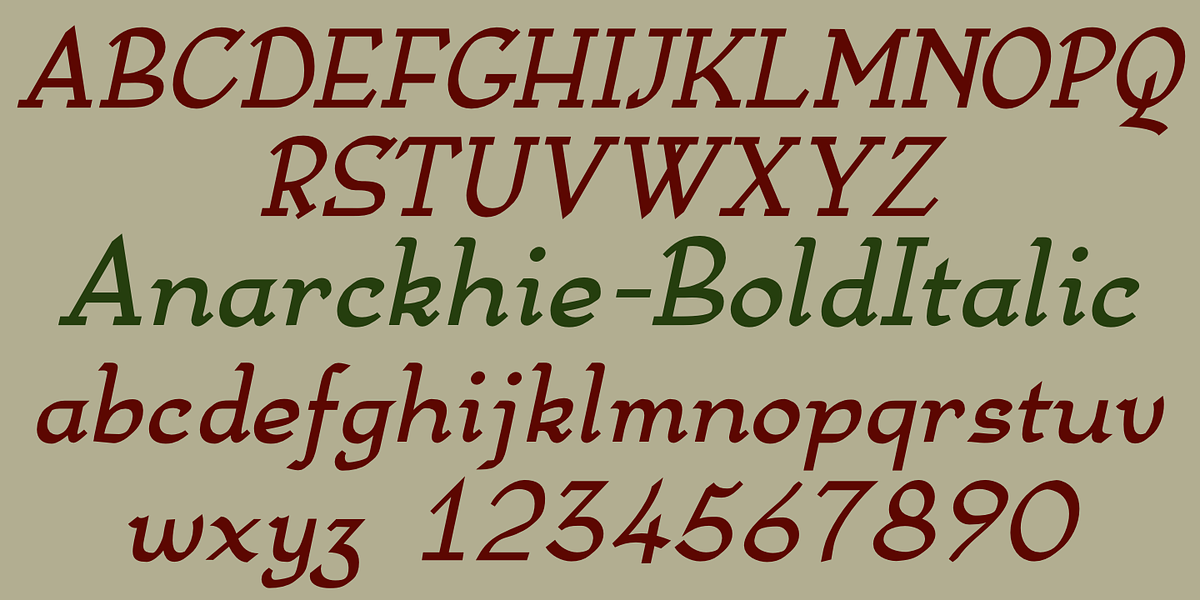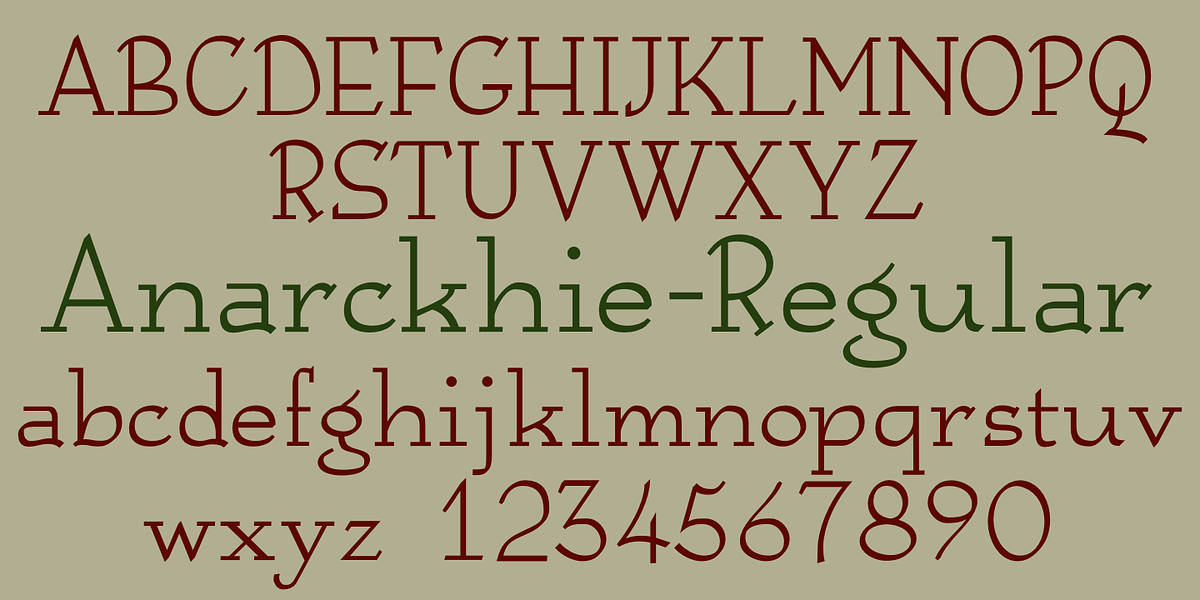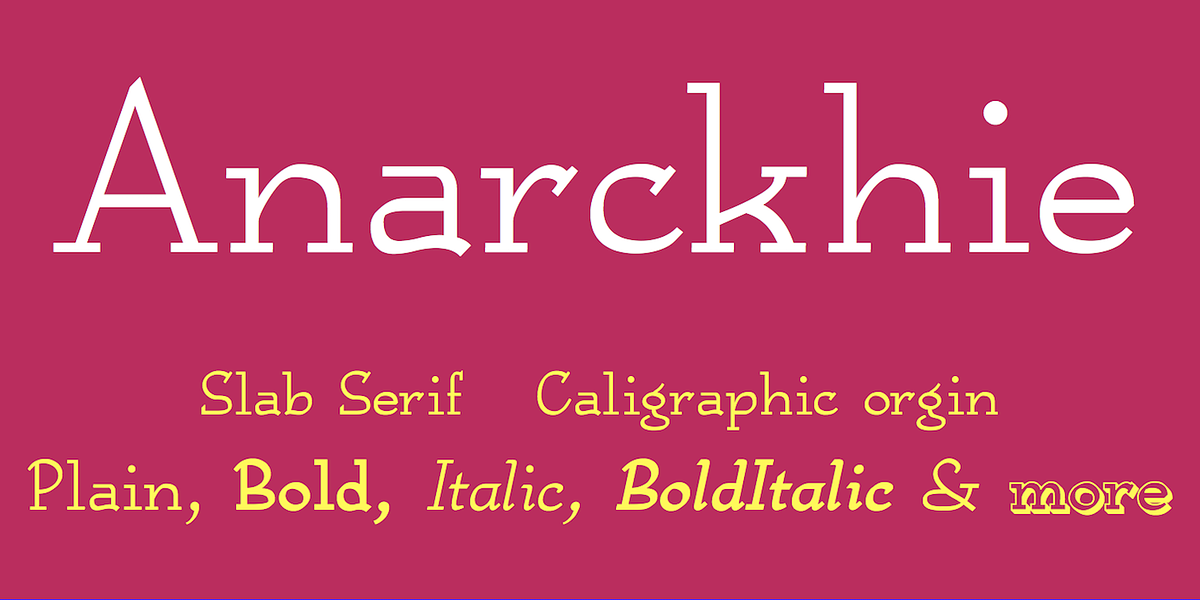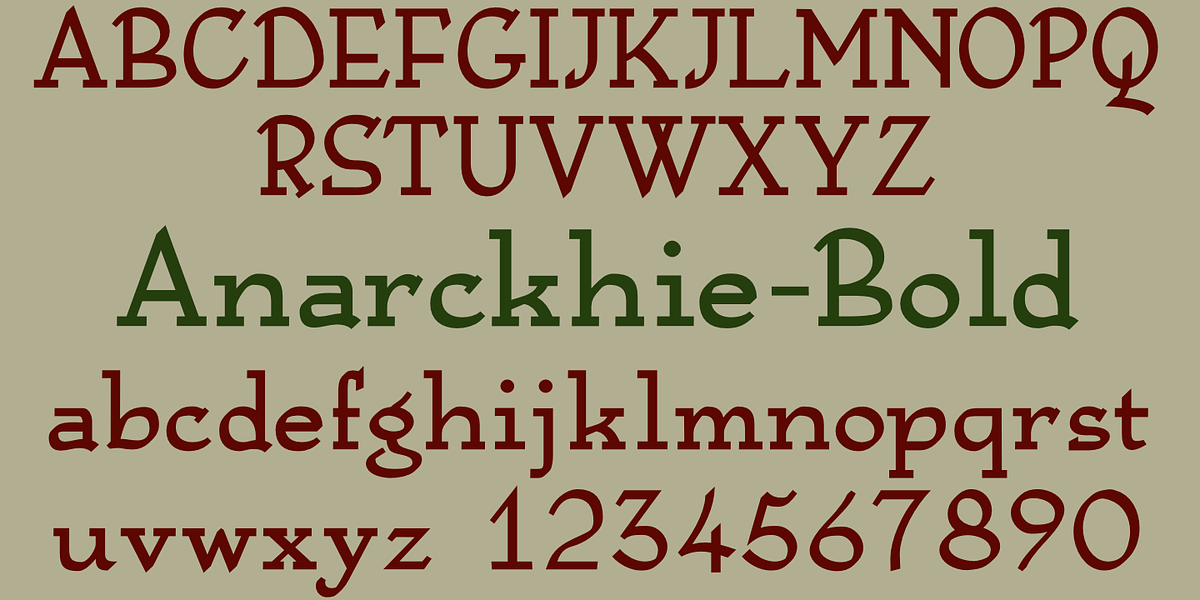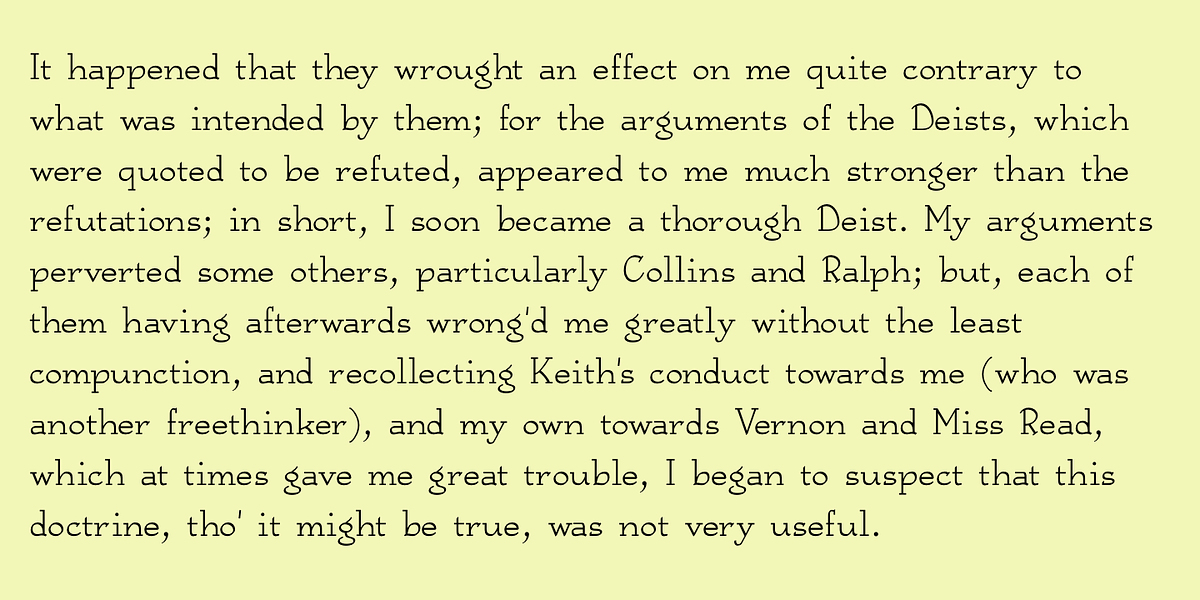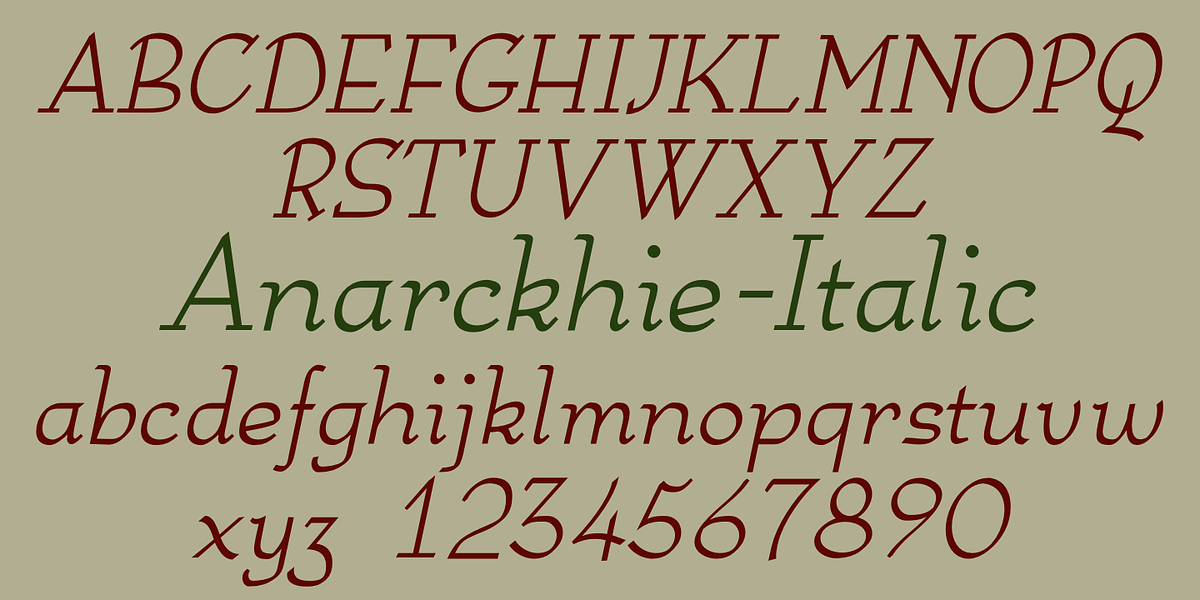
Anarckhie
Anarckhie is a calligraphic serif typeface characterized by its square serifs and unusually small x-height. The horizontal elements of the uppercase letters sit below their midpoint, contributing to its unique appearance. The typeface exhibits variation in stroke weight between horizontal, vertical, and diagonal elements. Anarckhie's distinctive features make it suitable for display purposes like branding and invitations.